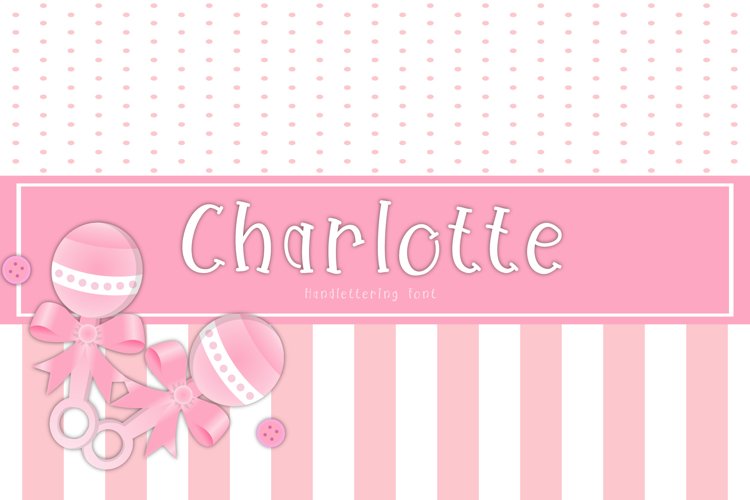
Charlotte Font is a sweet and friendly handwritten font. Its natural and unique style makes it incredibly fitting to a large pool of designs. The only limit is your imagination!
It looks beautiful on a variety of designs requiring a personalized style, such as wedding invitations, valentines day cards, thank you cards, weddings, greeting cards, logos, and much more.